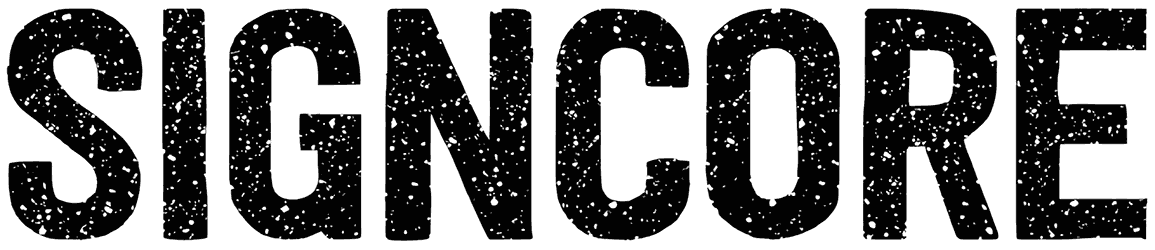
Signcore Font
Signcore, a fancy eroded font, has an unpolished look that conveys a grungy atmosphere. Despite the lack of lowercase letters, its spotted pattern makes it a great choice for artwork that needs to stand out.